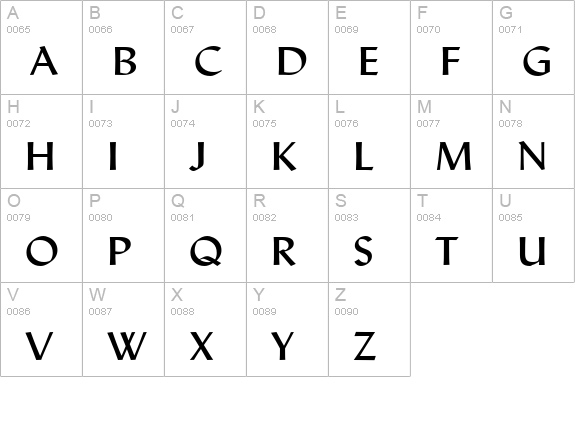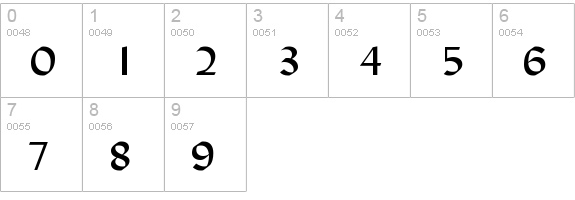
Lynda Wide Normal is the standard, neutral, extended-width variant in the Lynda typeface family \xE2\x80\x94 well suited to general body text, paragraphs, and standard typographic work.
Introducing Lynda Wide Normal font, a versatile and modern typeface that is perfect for a wide range of design projects. This font features clean lines and a balanced appearance that exudes professionalism and sophistication. With its wide character set and legible design, Lynda Wide Normal font is ideal for use in branding, advertising, editorial design, and more. What makes Lynda Wide Normal font even more appealing is that it is available for free download at FontsMarket.com. You can easily access this stylish and contemporary font to enhance your projects and make a lasting impression. Whether you are a graphic designer, marketer, or content creator, Lynda Wide Normal font offers the perfect balance of style and readability to elevate your work. Download it today and add a touch of elegance to your designs with this versatile typeface.